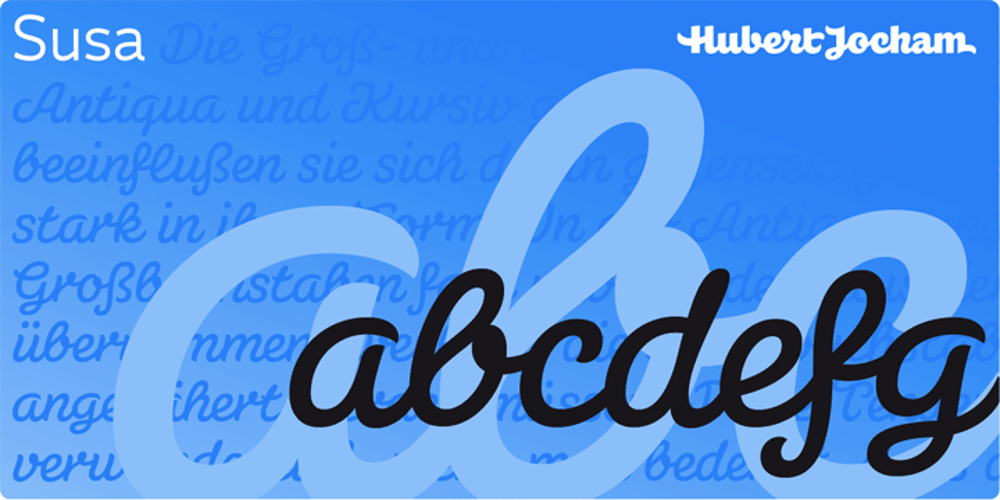
Susa Font Family was designed by Hubert Jocham and published by Hubert Jocham Type. Susa contains 4 styles and family package options. Susa is an elegant and flowing brush script typeface. Ideal for short text in the lighter weights and for headlines in bold and heavy weights.